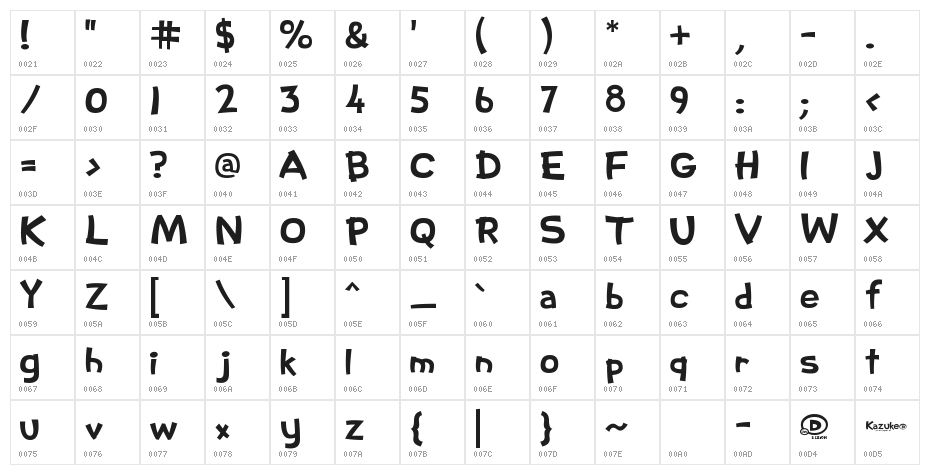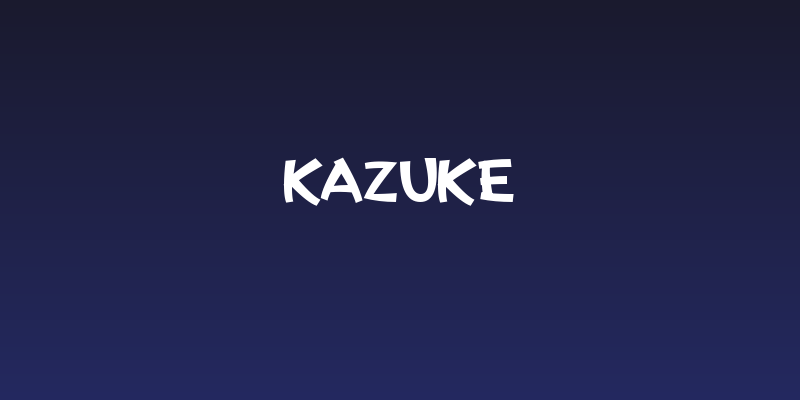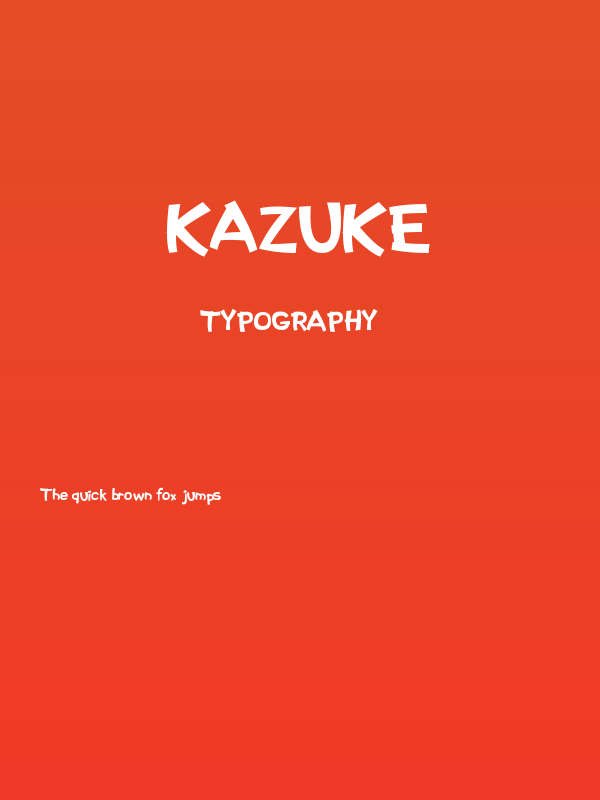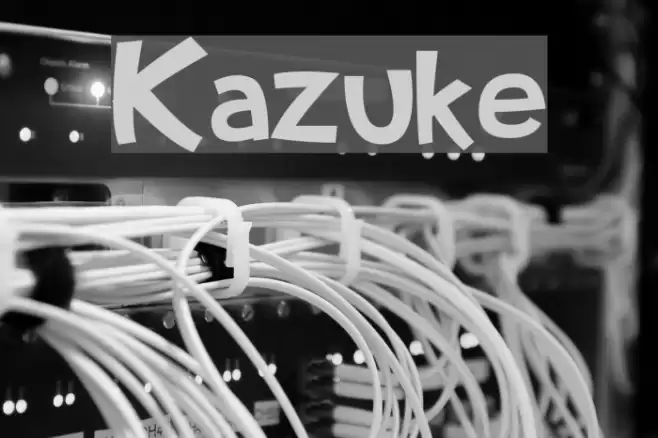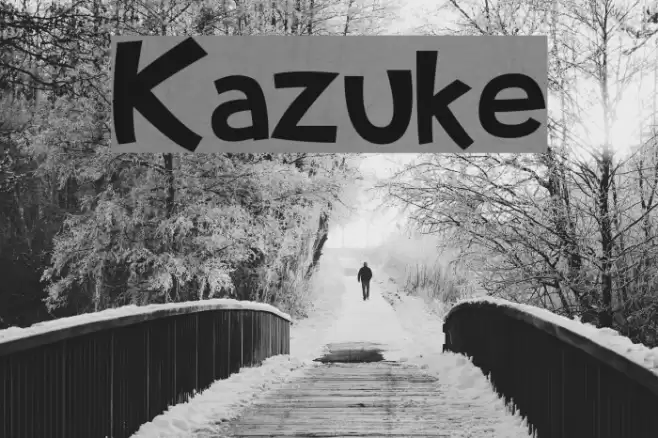
Kazuke Font
Kazuke Description
This playful and bold font features a whimsical, hand-drawn style with exaggerated curves and a lively personality. The letters are slightly irregular, giving it a casual and friendly appearance. The uppercase characters are bold and prominent, while the lowercase letters maintain a consistent style with a touch of quirkiness. Numbers are equally bold and maintain the playful aesthetic. The special characters are well-integrated, complementing the overall design. This font is perfect for projects that require a fun and engaging look.
| Overall Style | Playful, Whimsical |
| Proposed Projects | Ideal for children's books, playful branding, posters, and greeting cards. |